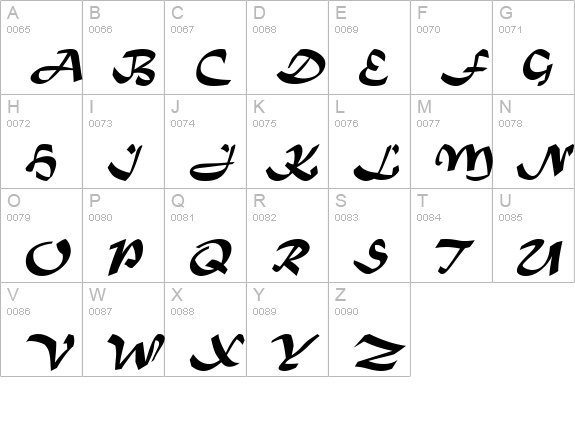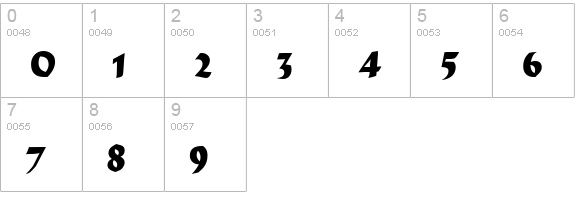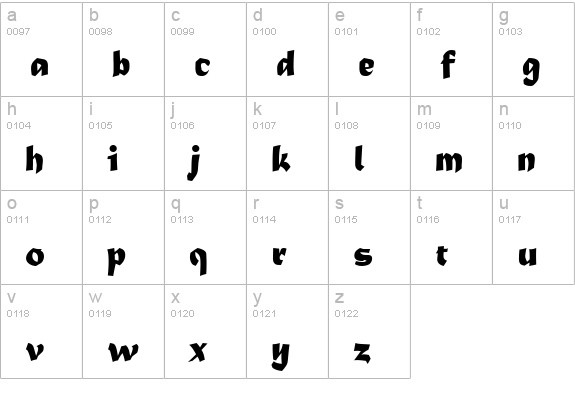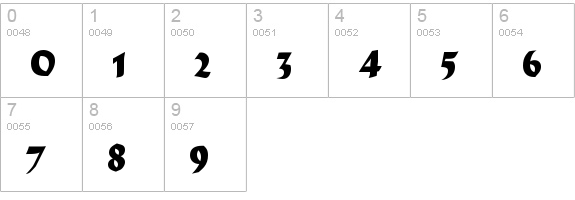
Matturra Font Details
The Matturra font is a stunning display typeface that exudes elegance and sophistication. Its modern and sleek design makes it perfect for a wide range of creative projects, from branding to editorial design. With its clean lines and stylish curves, Matturra is sure to make a statement and elevate any design it is used in. The best part about Matturra font is that it is completely free to download at FontsMarket.com. This means you can access this beautiful typeface without any cost, making it a valuable addition to your font library. Don't miss out on the opportunity to enhance your projects with the timeless beauty of Matturra font - download it today and take your designs to the next level!